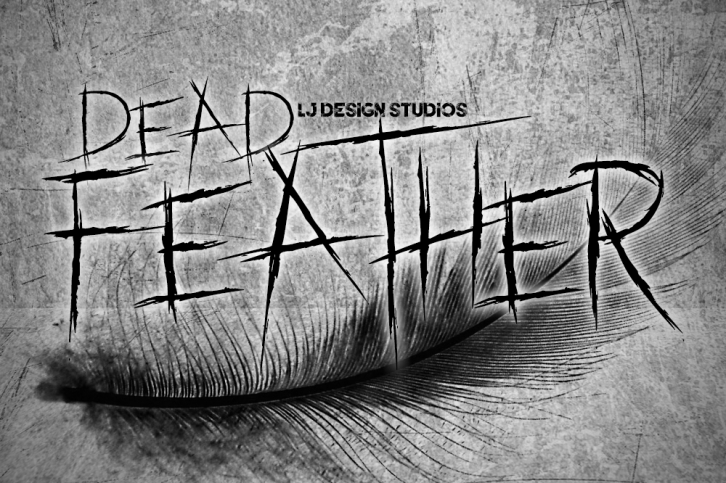
Dead Feather is a trendy and unique font with an authentic style. It was designed by LJ Design Studios and it's a great choice for creative people who need such a font. It was released on August 22, 2018 and the file size is 1.97 MB. Dead Feather will add an organic vibe to any design idea!